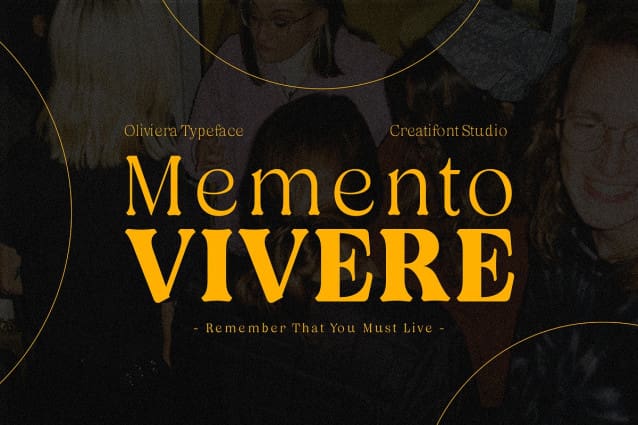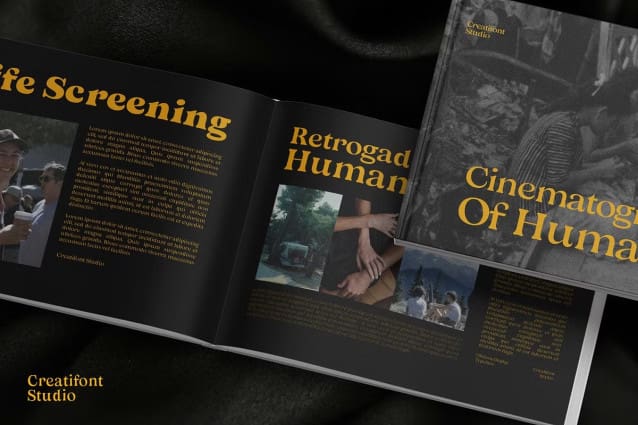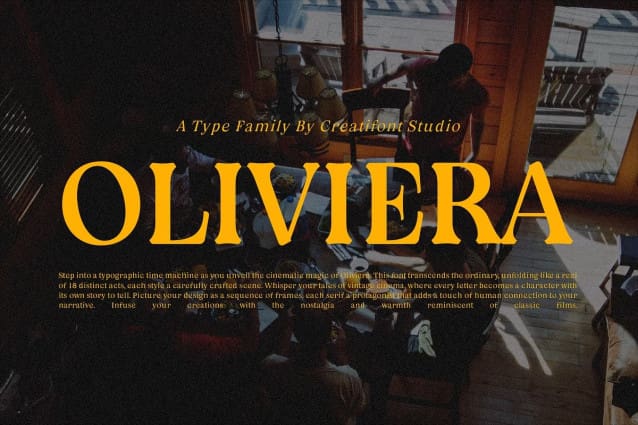
Oliviera Font
Oliviera Font – is a humanist serif family in 18 styles with rounded corners and delicate curves. It has a sophisticated and vintage look, making it perfect for branding, logos, and editorial design. The rounded corners and edges give Oliviera a soft and friendly feel. The High x-height makes the letters appear taller and more legible, especially in small sizes. Oliviera Font is a versatile and stylish font that can be used for a variety of design projects. It is a good choice for designers who want to create elegant yet vintage designs.